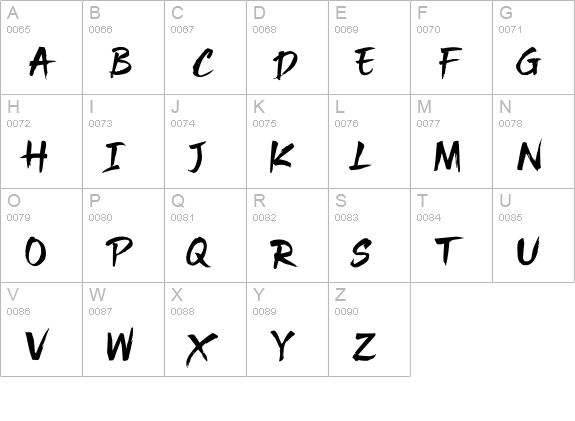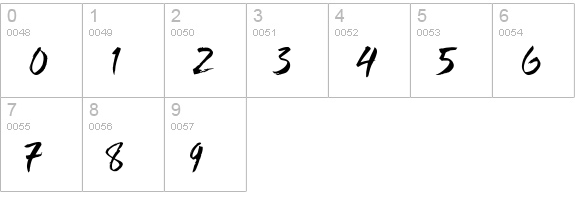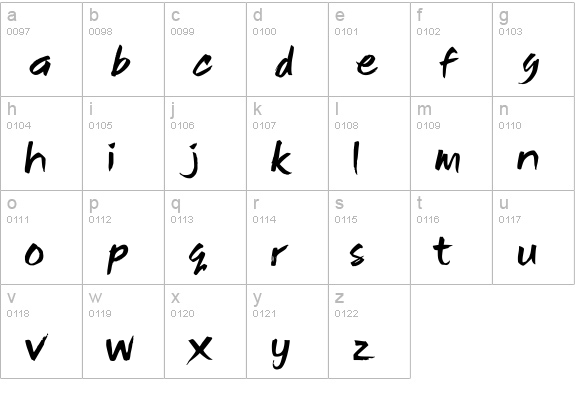
Bajigur Font Font Details
Bajigur Font is a free for personal use font in the Script > Brush category, designed by ketapel. It has been downloaded 471 times and is available for Windows, Mac and Linux.
Bajigur Font is a unique and stylish typeface that exudes elegance and sophistication. With its intricate details and eye-catching design, this font is the perfect choice for projects that require a touch of class and creativity. Bajigur Font is ideal for branding, logos, invitations, and more.